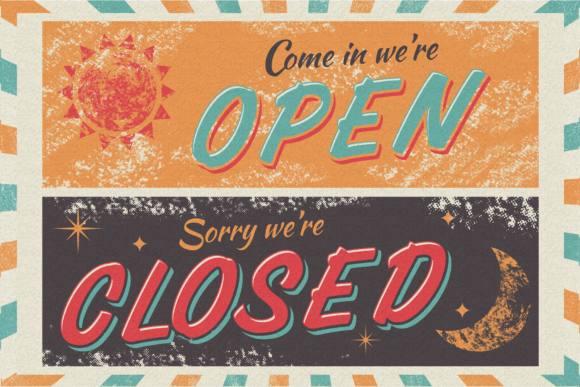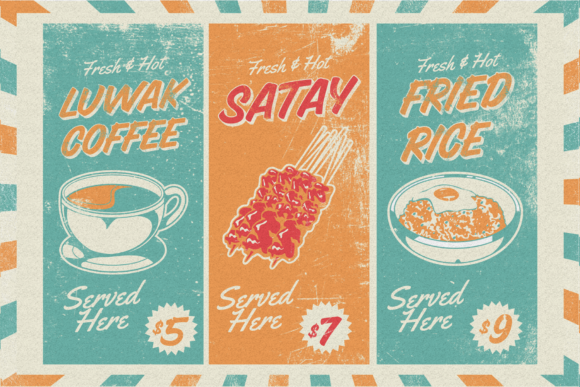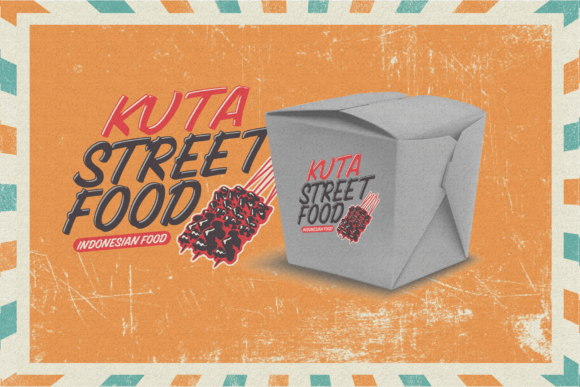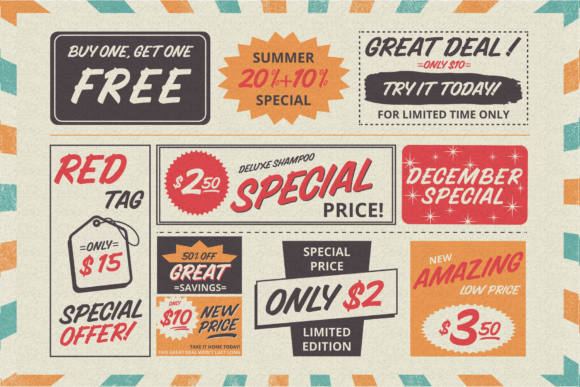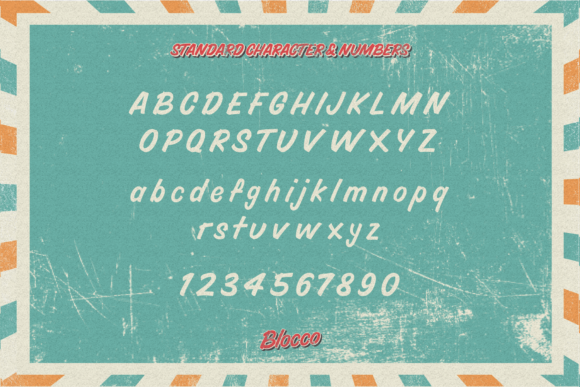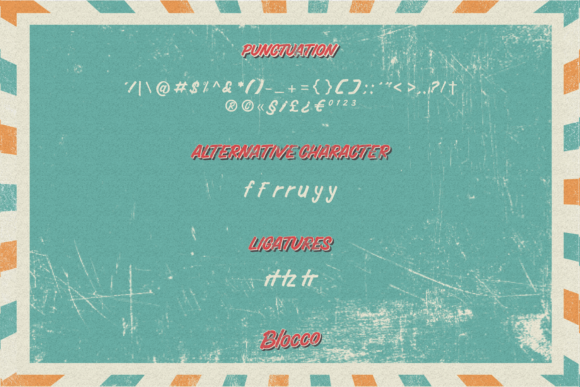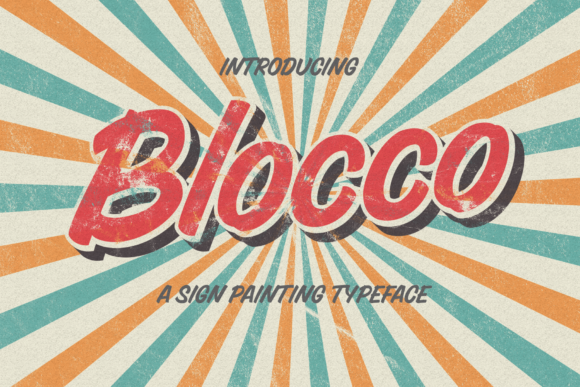
Unleash Your Creativity with Blocco Font: A Fun and Playful Display Font Inspired by Sign Painting
Are you a designer or crafter looking for a unique and exciting font to add some personality to your projects? Look no further than Blocco Font, a gorgeous and playful display font that is inspired by the art of sign painting. With its fun and quirky vibe, Blocco is the perfect choice for anyone looking to ignite their creativity and take their designs to the next level.
The Inspiration Behind Blocco Font
Blocco Font draws its inspiration from the world of sign painting, a traditional craft that involves hand-painting letters and designs on signs and billboards. The font’s creator was fascinated by the bold, expressive lettering that is characteristic of sign painting, and sought to capture its essence in a digital font. The result is Blocco, a font that is both playful and sophisticated, with a unique charm that is sure to capture the hearts of designers and crafters alike.
What Makes Blocco Font So Special?
So, what sets Blocco Font apart from other display fonts on the market? Here are just a few of the things that make it so special:
- Unique lettering style: Blocco’s lettering style is unlike anything you’ve seen before. With its bold lines, playful curves, and quirky flourishes, this font is sure to add a touch of personality to any design.
- Highly legible: Despite its playful nature, Blocco Font is highly legible, even at large sizes. This makes it perfect for use in headlines, titles, and other display text.
- Versatile: Blocco Font is incredibly versatile, and can be used in a wide range of design applications, from posters and flyers to logos and branding materials.
How to Use Blocco Font in Your Designs
Now that you know a little bit about Blocco Font, let’s talk about how to use it in your designs. Here are a few ideas to get you started:
- Headlines and titles: Blocco Font is perfect for use in headlines and titles, where its bold, playful lettering can really make an impact.
- Posters and flyers: Add some personality to your posters and flyers with Blocco Font. Its unique lettering style is sure to grab attention and make your designs stand out.
- Logos and branding: Use Blocco Font to create a unique and memorable logo for your business or brand. Its quirky vibe is sure to help you stand out from the competition.
- Social media graphics: Add some flair to your social media graphics with Blocco Font. Its playful lettering style is perfect for creating eye-catching graphics that will help your posts stand out.
Tips and Tricks for Getting the Most Out of Blocco Font
Here are a few tips and tricks to help you get the most out of Blocco Font:
- Experiment with different colors: Blocco Font looks great in a wide range of colors, so don’t be afraid to experiment and find the perfect hue for your design.
- Play with font sizes: Blocco Font is highly legible, even at large sizes, so don’t be afraid to experiment with different font sizes to create visual interest.
- Combine with other fonts: Blocco Font pairs well with a wide range of other fonts, so feel free to experiment with different combinations to create a unique look.
In conclusion, Blocco Font is a fun and playful display font that is inspired by the art of sign painting. With its unique lettering style, high legibility, and versatility, it’s the perfect choice for designers and crafters looking to add some personality to their projects. Whether you’re creating headlines, posters, logos, or social media graphics, Blocco Font is sure to ignite your creativity and take your designs to the next level.